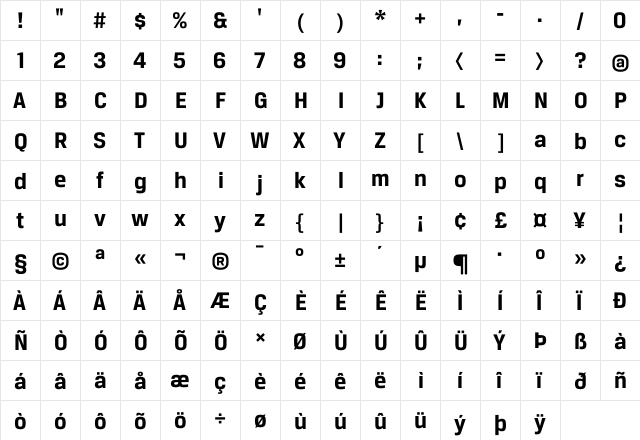
BreuerText Bold
Design Context for BreuerText Typeface
BreuerText offers clean, dependable letterforms without strong stylistic allegiance, making it a practical choice for designers who need flexibility. Its bold stroke weight gives it real presence on the page.
Pro Tip: Pair BreuerText with a font of contrasting weight or personality to build a more expressive typographic hierarchy.